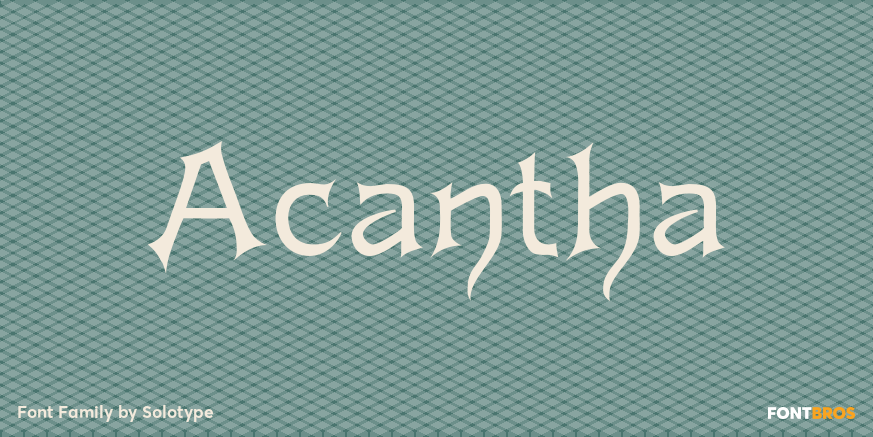
Acantha
About Acantha
Originally made in seven sizes, 6 to 48 point. Our font was digitized from the 24 point which we found in 1947 in a Sparks, Nevada, newspaper shop. Typical of the late nineteenth century types for job printers, where the rule was ?never start a line…